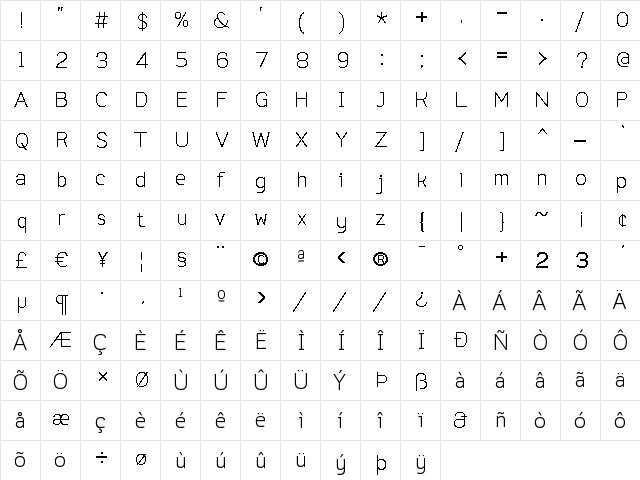
Do Gothic Light
Design Context for Do Gothic Typeface
Do Gothic has the quiet confidence of well-executed sans-serif typography: versatile, unobtrusive, and dependable at any size. The delicate stroke weight brings airiness and refinement to layouts.
Ideal for fashion and beauty branding, minimal editorial layouts, and premium digital experiences.
Font Pairing: Pair Do Gothic with a medium or bold serif for headlines — the weight contrast creates an elegant, high-end feel.
Pro Tip: Avoid using Do Gothic at very small sizes where its slender strokes can disappear. It performs best at medium to large sizes.